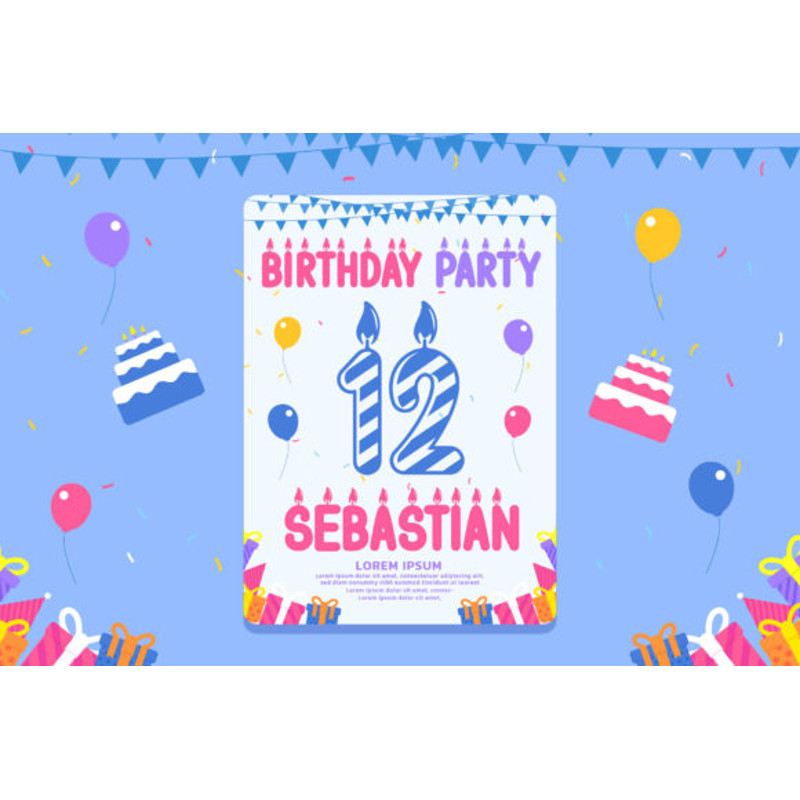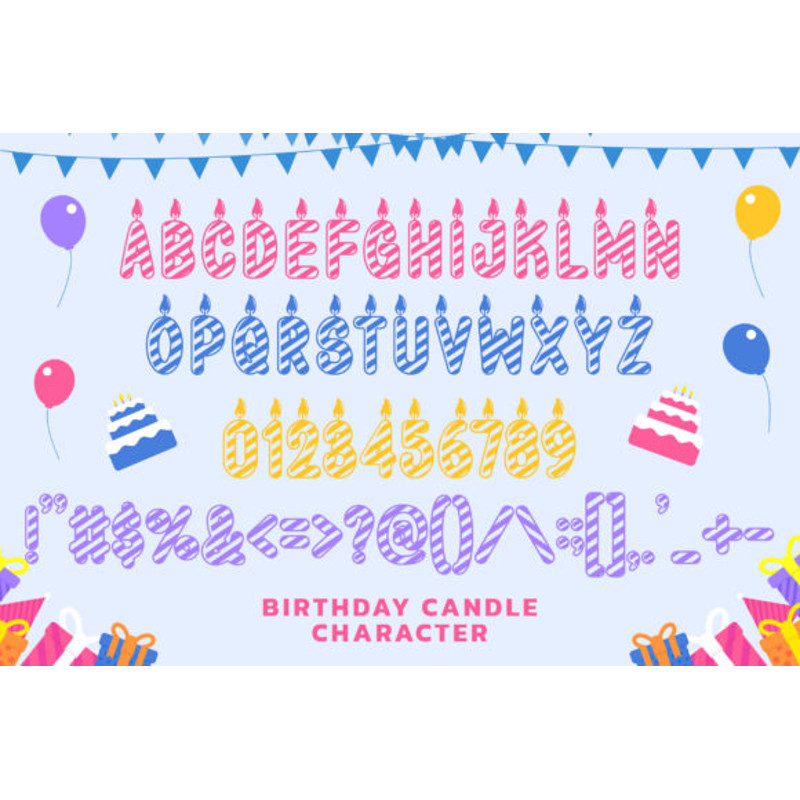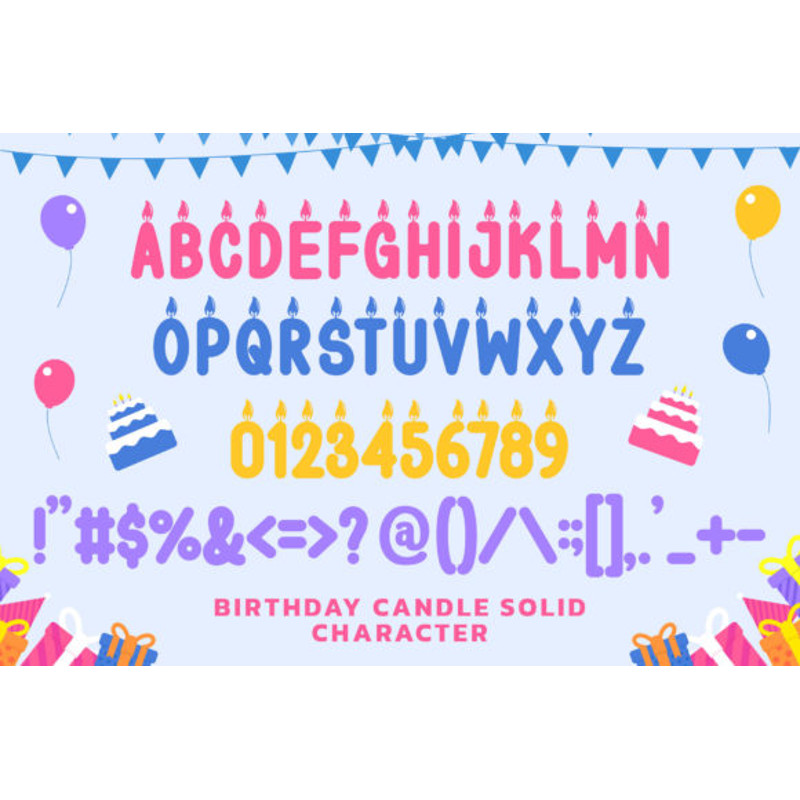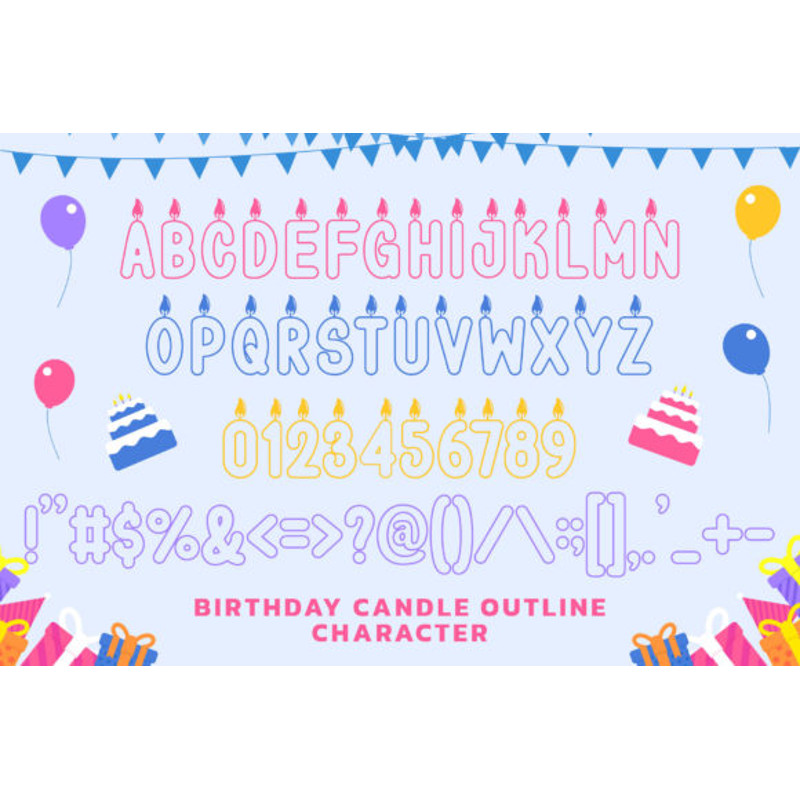
Birthday Candle is a beautiful and unique display font. It has a classy, unique and modern look that can be used for logos, birthday card, invitations, stationery, wedding designs, greetings card, social media posts, and much more! This font is PUA encoded which means you can access all of the glyphs and swashes with ease.